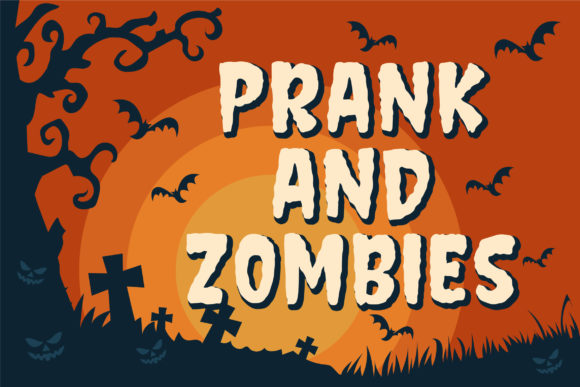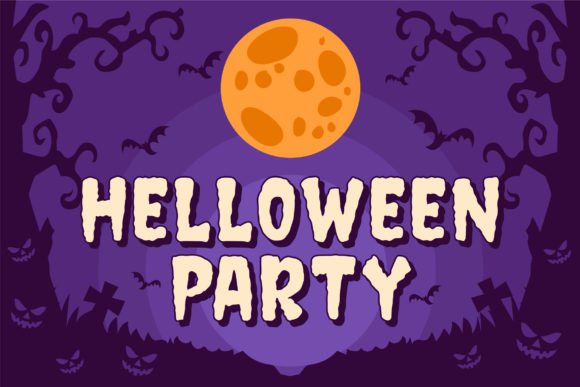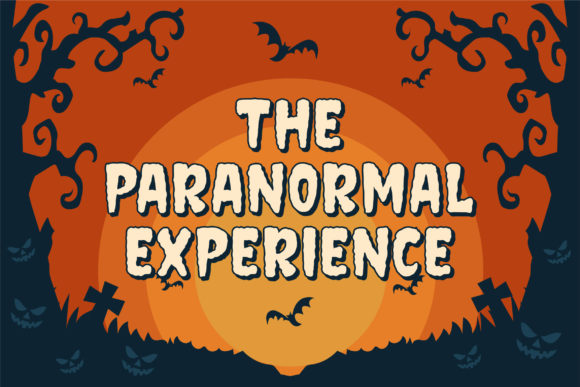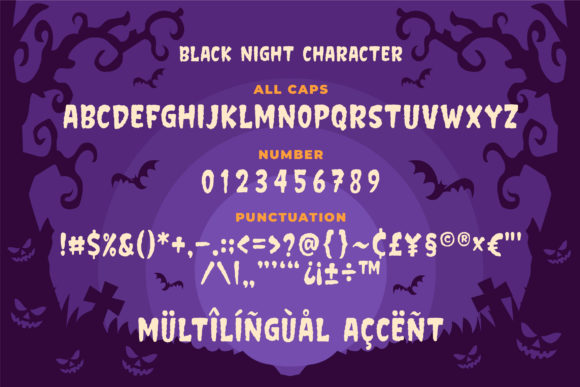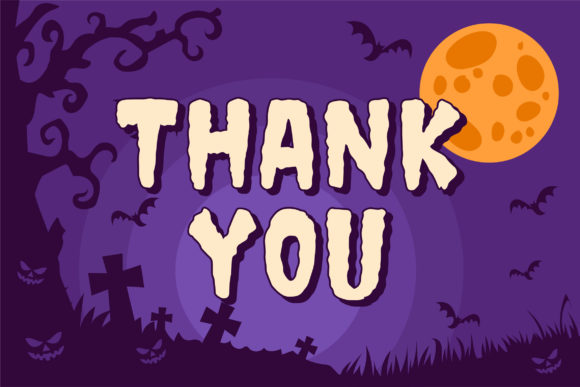
The Magic of Black Night Font: A Spooky yet Whimsical Display Font
I’ll never forget the time I was working on a Halloween-themed project for a client, and I just couldn’t find the right font to capture the spooky yet playful vibe I was going for. That was until I stumbled upon the Black Night Font! With its fun and quirky design, it instantly brought my project to life. If you’re a designer, crafter, or creative hobbyist looking for a font that will add a touch of magic to your work, then you’re in the right place!
A Personal Review of Black Night Font
- ✨ Unique and quirky design: Black Night Font has a one-of-a-kind look that’s perfect for Halloween-themed projects or any design that needs a touch of whimsy.
- ✅ Easy to read: Despite its playful design, the font is surprisingly easy to read, making it perfect for headlines, titles, and short paragraphs.
- 🎃 Perfect for Halloween: The font’s spooky yet friendly vibe makes it an ideal choice for Halloween-themed projects, from party invitations to social media graphics.
While Black Night Font is an amazing display font, there are a few things to keep in mind:
- 🤔 Not suitable for body text: Due to its decorative nature, Black Night Font is best used for headlines, titles, and short paragraphs. It may not be the best choice for longer blocks of text.
- ⚠️ Limited Unicode support: As with many display fonts, Black Night Font may not support the full range of Unicode characters. Be sure to test the font with your specific text before finalizing your design.
The Backstory of Black Night Font
Black Night Font was designed by a team of creatives who wanted to capture the magic and mystery of a spooky Halloween night. Inspired by old-fashioned sign painting and mystical symbols, the font is meant to evoke a sense of wonder and enchantment. Whether you’re designing a Halloween party invitation or a spooky social media graphic, Black Night Font is sure to cast a spell on your audience!